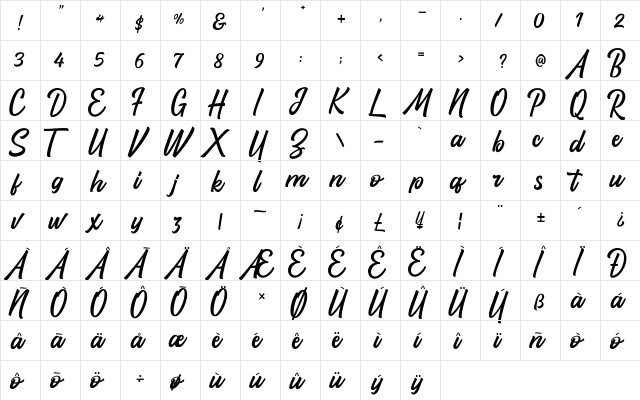
Santun Adab Regular
Design Context for Santun Adab Typeface
Santun Adab is a composed and adaptable typeface that performs quietly and consistently across a wide range of design contexts.